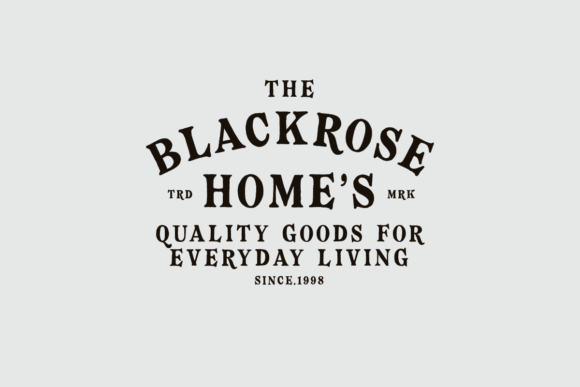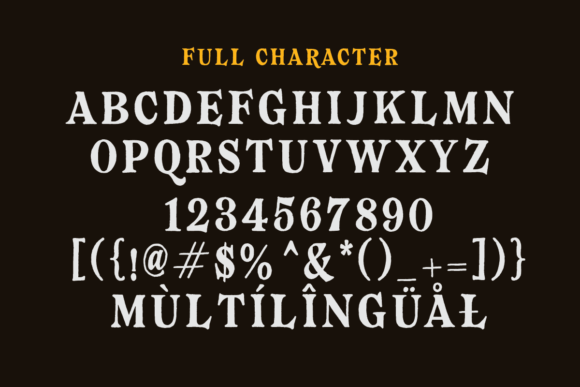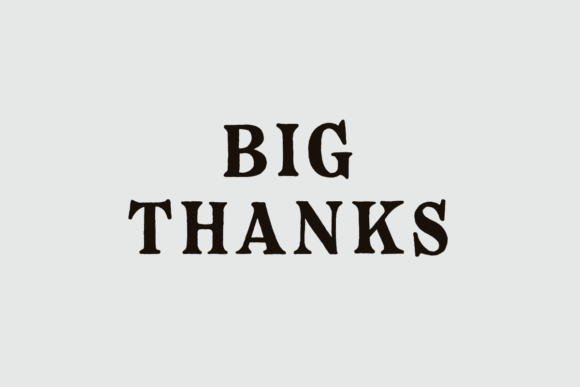
Bearmen Font: A Playful Blast from the Past
Back to the future! Bearmen feels playfully nostalgic and delivers an incredible vintage aesthetic. If you’re a designer or crafter looking for a font that can transport you and your audience back in time, look no further than Bearmen. This charming font is making waves in the design community, and for good reason.
The Charm of Bearmen Font
Bearmen font is a masterclass in nostalgic design. With its bold lines, playful curves, and endearing imperfections, this font is sure to evoke memories of a bygone era. Whether you’re working on a project that requires a retro vibe or simply want to add some personality to your design, Bearmen is an excellent choice. Its unique blend of playfulness and sophistication makes it perfect for a wide range of applications, from branding and packaging to scrapbooking and DIY crafts.
A Brief History of Bearmen Font
While the origins of Bearmen font are shrouded in mystery, its impact on the design world is undeniable. This font has been making waves in the design community, with many designers and crafters singing its praises. Whether you’re a seasoned pro or just starting out, Bearmen is a font that’s sure to inspire your creativity and take your designs to the next level.
Key Features of Bearmen Font
- Unique Vintage Aesthetic: Bearmen font boasts a distinctive vintage look that’s sure to turn heads.
- Playful and Nostalgic: This font combines playfulness with a sense of nostalgia, making it perfect for projects that require a retro vibe.
- Highly Versatile: Bearmen is suitable for a wide range of applications, from branding and packaging to scrapbooking and DIY crafts.
- Easy to Read: Despite its vintage aesthetic, Bearmen is surprisingly easy to read, making it perfect for body text and headlines.
Using Bearmen Font in Your Designs
- Branding and Packaging: Use Bearmen to create eye-catching logos, labels, and packaging that stands out from the crowd.
- Scrapbooking and DIY Crafts: Add a touch of nostalgia to your scrapbooking and DIY projects with Bearmen’s playful, vintage aesthetic.
- Signage and Posters: Create eye-catching signs and posters with Bearmen’s bold, playful letters.
Tips and Tricks for Working with Bearmen Font
- Experiment with Colors: Bearmen looks great in a range of colors, from bold and bright to muted and pastel.
- Mix and Match: Combine Bearmen with other fonts for a unique, layered look.
- Play with Size: Bearmen is effective at a range of sizes, from small body text to large headlines.
In conclusion, Bearmen font is a playful blast from the past that’s sure to delight designers and crafters alike. With its unique vintage aesthetic, playful curves, and endearing imperfections, this font is perfect for projects that require a retro vibe. Whether you’re working on branding and packaging, scrapbooking and DIY crafts, or signage and posters, Bearmen is an excellent choice. So why not give it a try and see the magic for yourself?